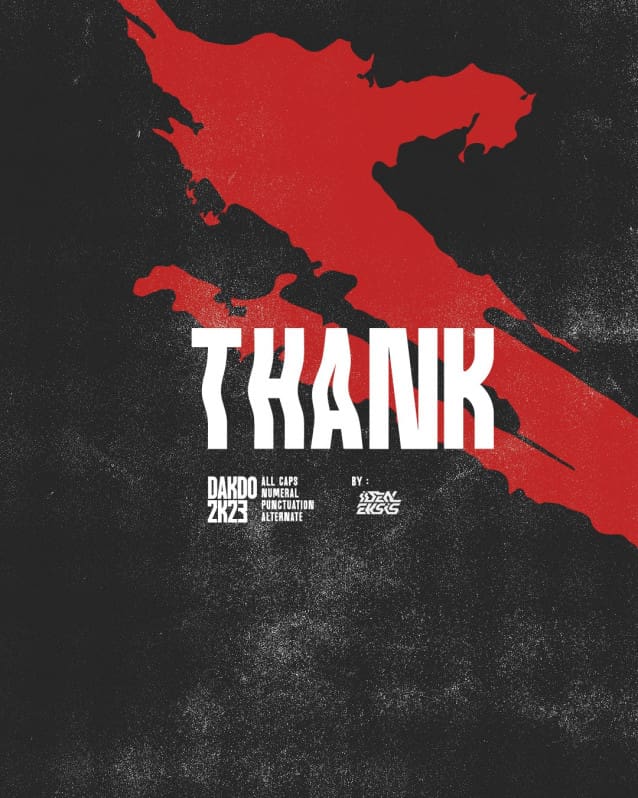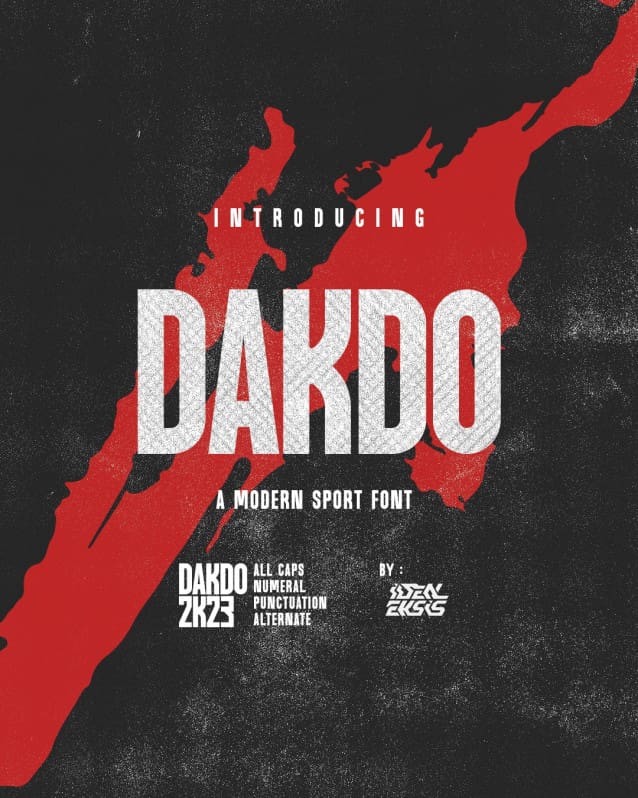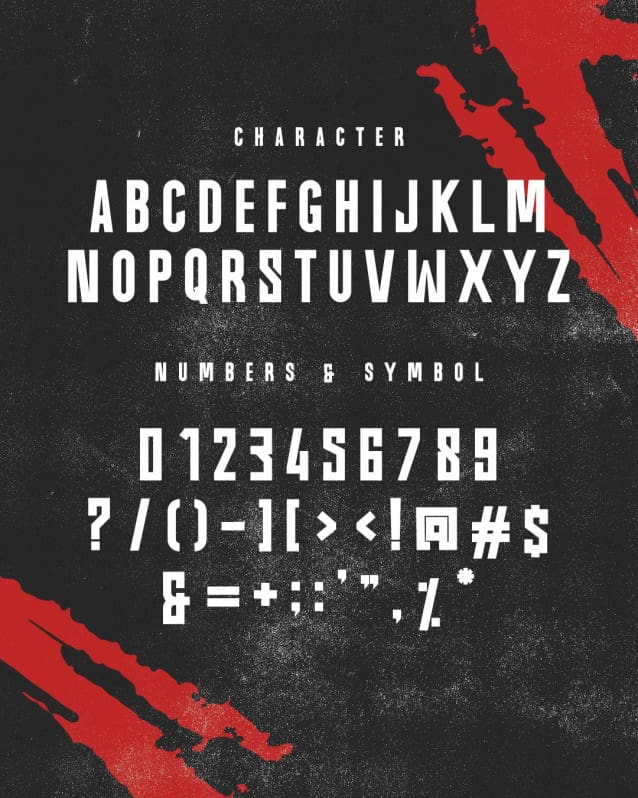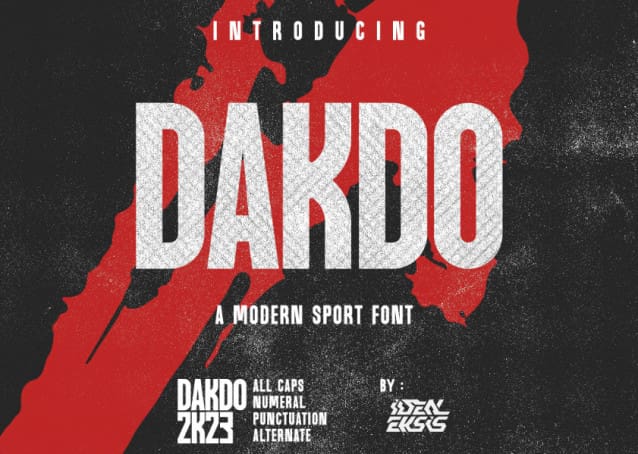
Dakdo Sans Font
Dakdo Sans Font is a visually striking typeface, specifically crafted to evoke a sense of strength and dynamism, making it particularly well-suited for the realms of sports and esports gaming. With sharp lines and prominent angles, this font exudes power and energy.